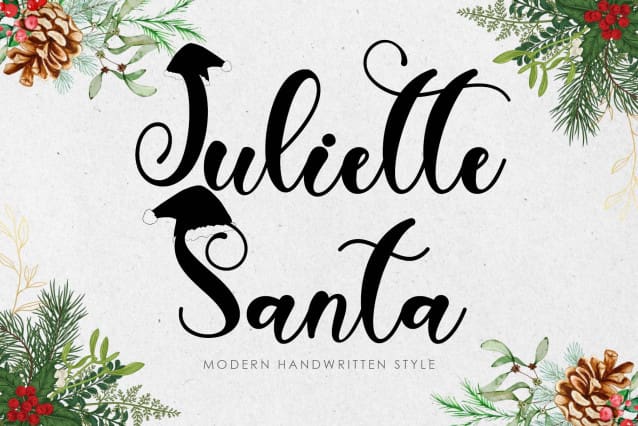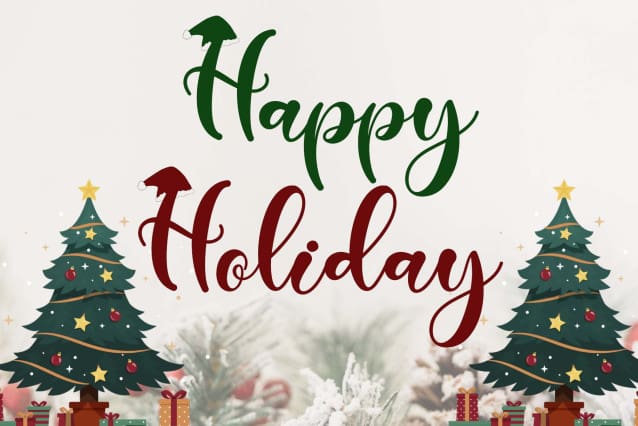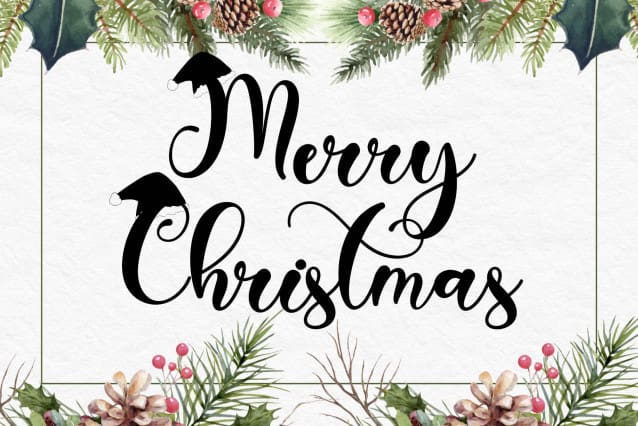
Juliette Santa Font
Juliette Santa Font is a beautiful and unique handwritten font. This font is equipped with uppercase, lowercase, numerals, punctuations, ligatures and multilingual support. Very suitable for Christmas, congratulations, weddings, birthdays, fall, back to school, July Christmas, summer, holidays and others.